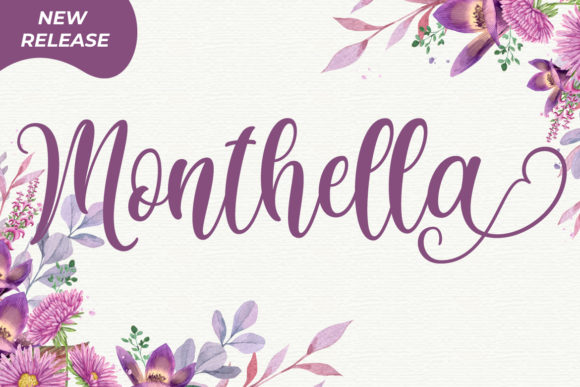
Monthella Font
Download Monthella Font for free! Created by Fallengraphic and published by Quinn McNamara, this script font family is perfect for adding a unique touch to your designs.
Unveil the Mesmerizing Script of Monthella, Crafted for Unforgettable Expressions!
Indulge in the ethereal elegance of Monthella, a captivating script font that dances across your screen like a delicate symphony. This exquisite creation transports you to a realm of timeless beauty, where every letter becomes a masterpiece.
With its graceful curves and subtle nuances, Monthella breathes life into your most cherished moments. Imagine your wedding invitations adorned with its enchanting charm, carrying the promise of a love that will forever endure. The soft brushstrokes of Monthella paint a canvas of elegance on thank you cards and quotes, making them treasured keepsakes.
Let Monthella add a touch of sophistication to your greeting cards, logos, and business cards. Its versatility transcends boundaries, captivating clients and friends alike. Whether you're a creative professional seeking to elevate your designs or simply a dreamer with a penchant for the extraordinary, Monthella will become your trusted companion.